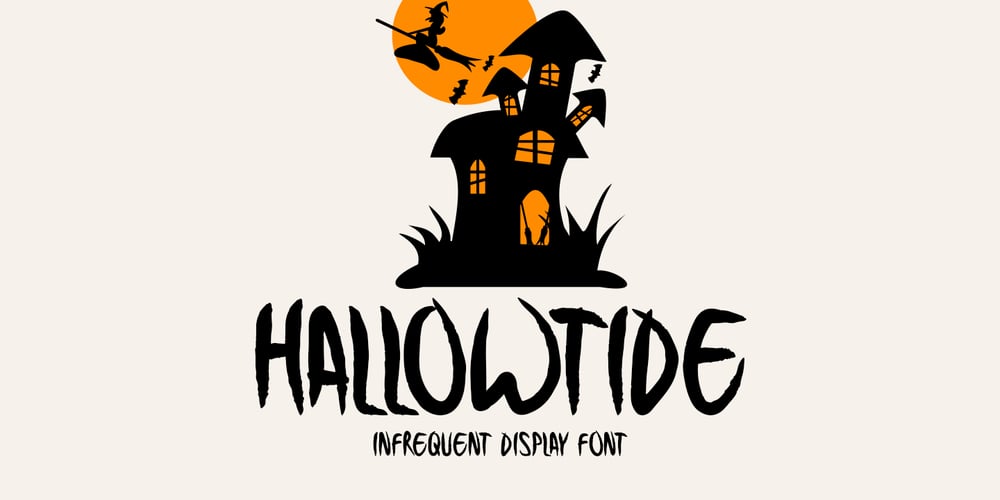
Hallowtide Font Family was designed by Md Shohail Bhuian and published by Seemly Fonts. Hallowtide contains 1 styles and family package options. Hallowtide is a unique and eye-catching display typeface that has been thoughtfully designed to enhance a range of artistic endeavors, such as printed materials, logos, t-shirt designs, flyers, picture frames, album covers, posters, and image sliders.